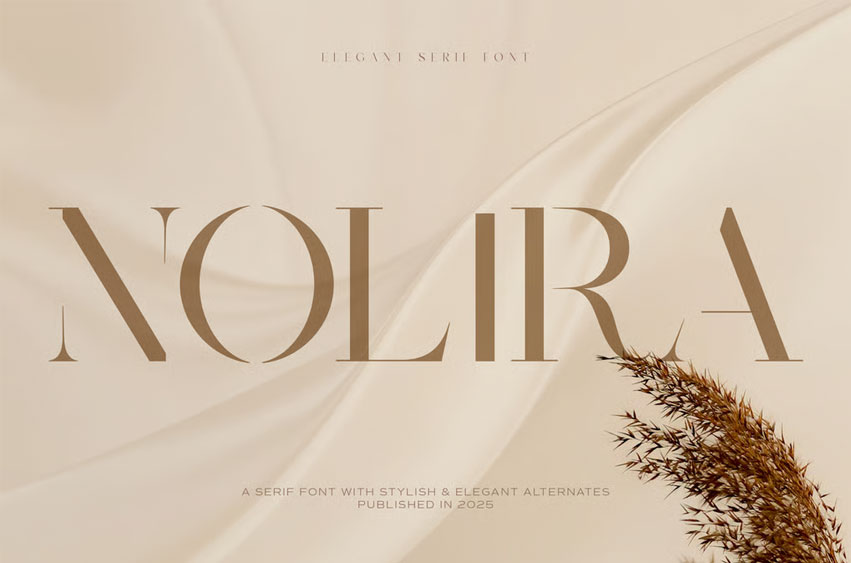
Nolira Font
Nolira Font is a modern serif typeface featuring clean lines, balanced proportions, and high contrast between thick and thin strokes. Designed for display use, this font is suitable for editorial layouts, branding, packaging, signage, and headlines.
With its sharp serifs and refined shapes, Nolira offers a strong visual presence while maintaining readability. The font includes uppercase and lowercase characters, numerals, punctuation, and multilingual support.
• Ligature & Stylistic alternate